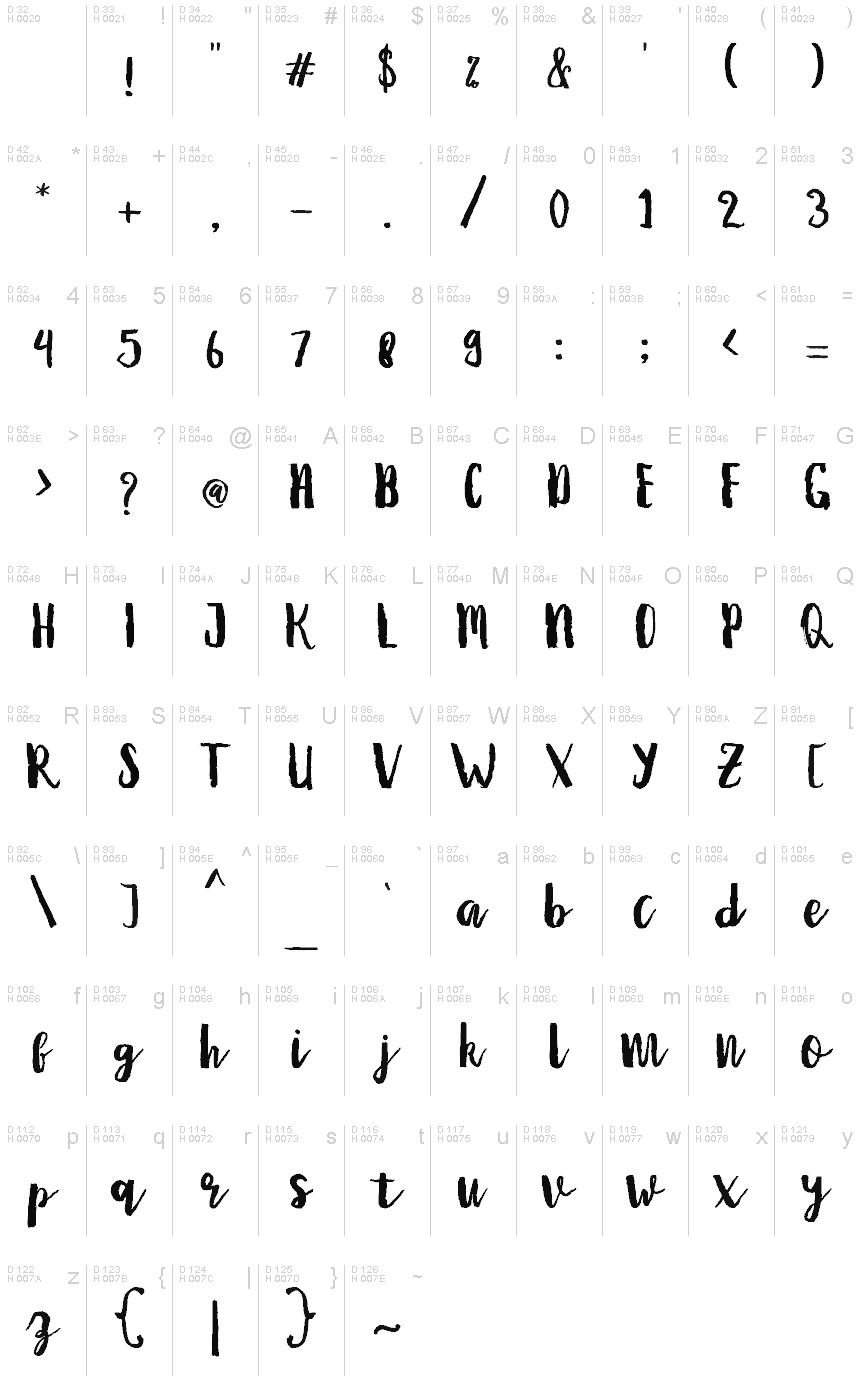
DebtCollectors
Debt Collectors
Again presented a hand brush products. The style of handwriting and irregular but still elegant, and you will enjoy to use this font style.